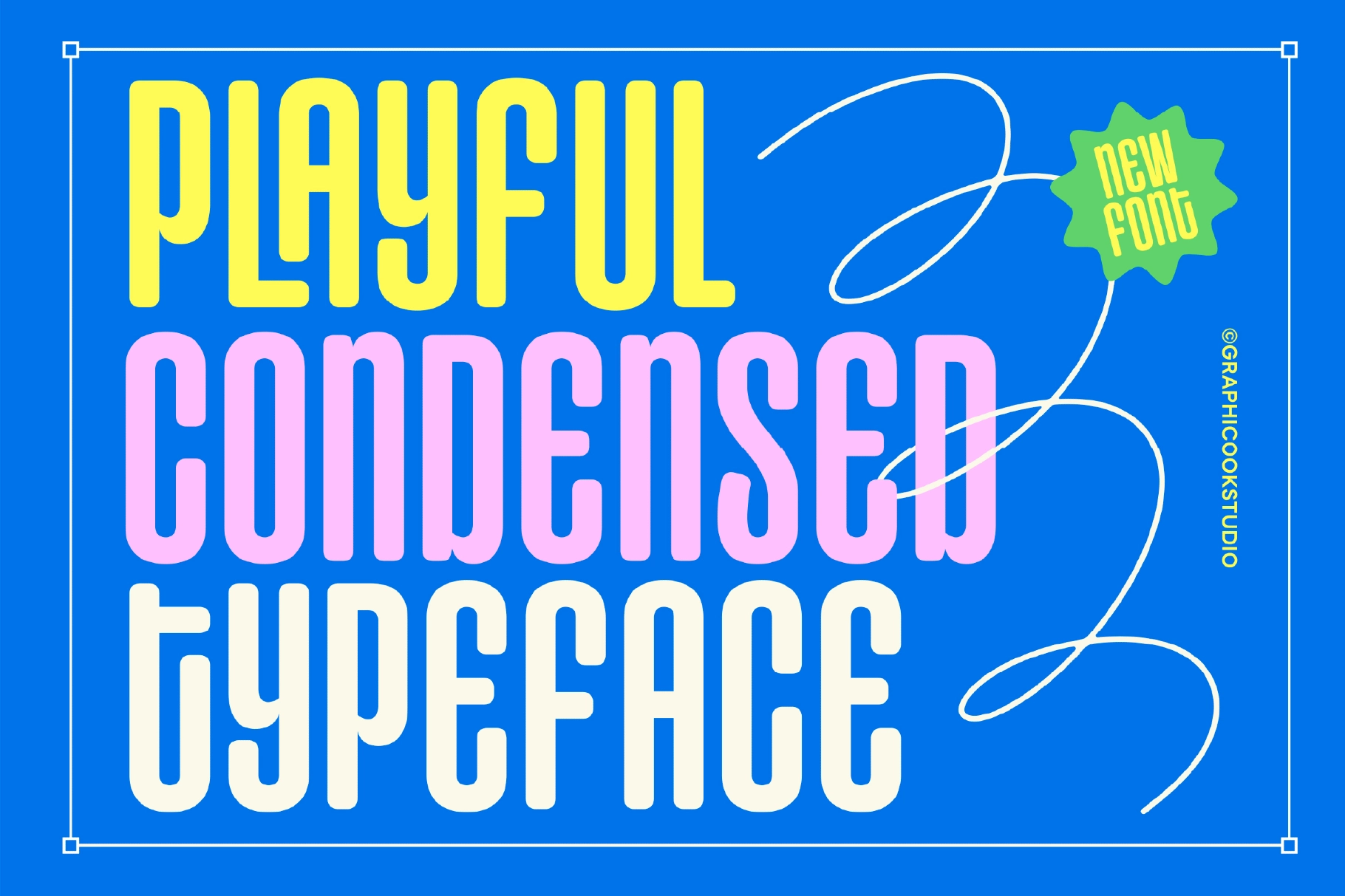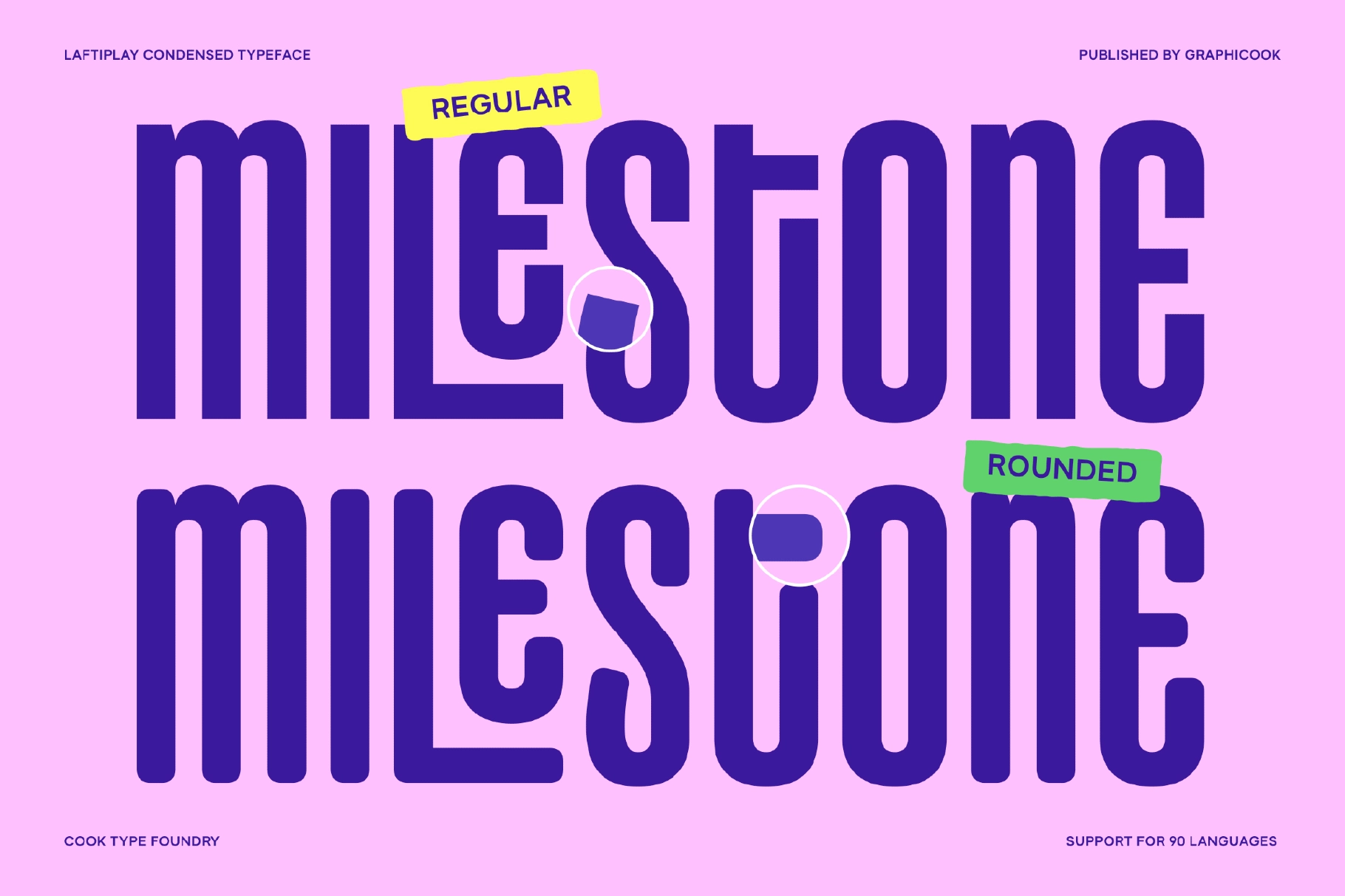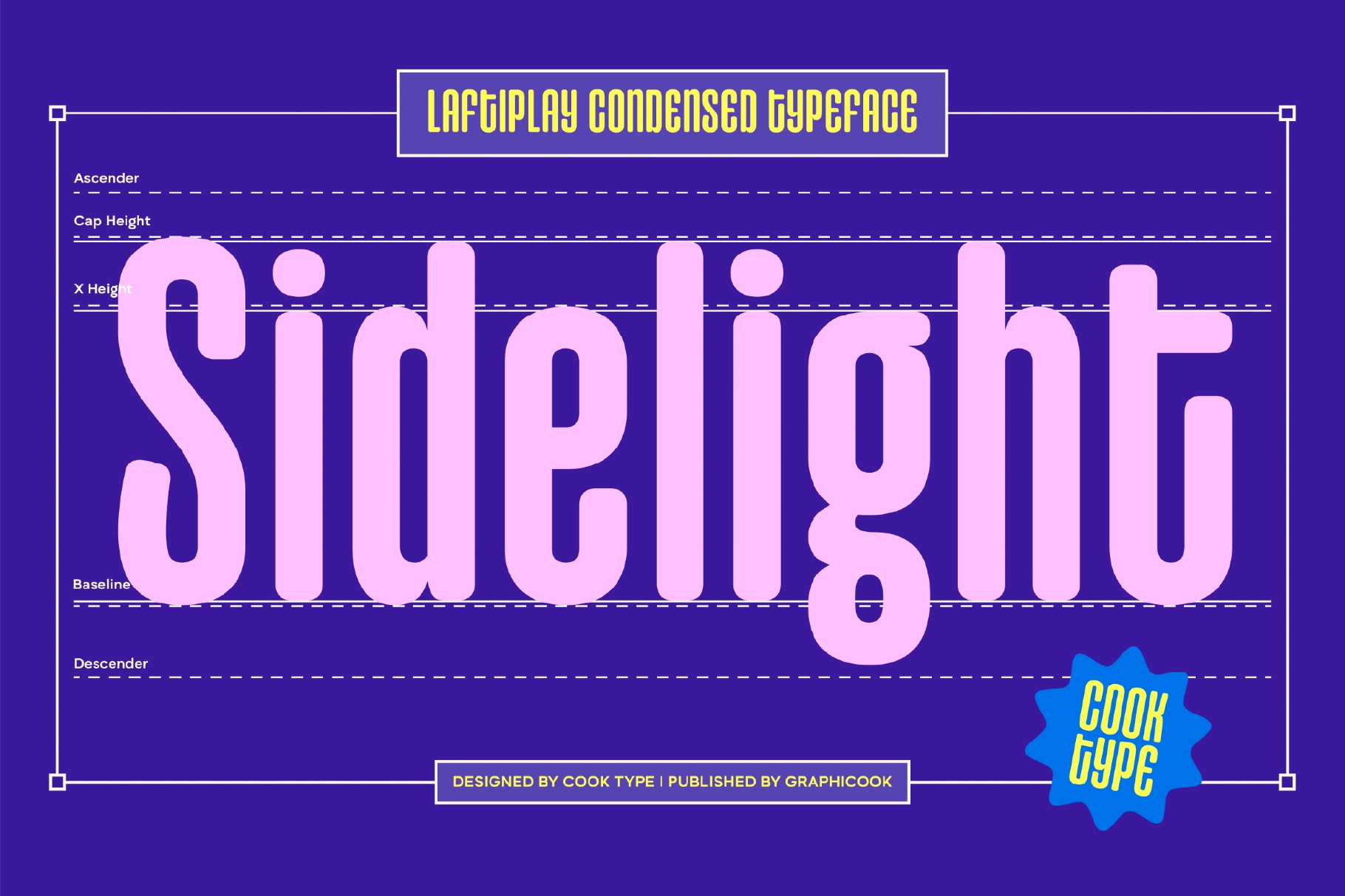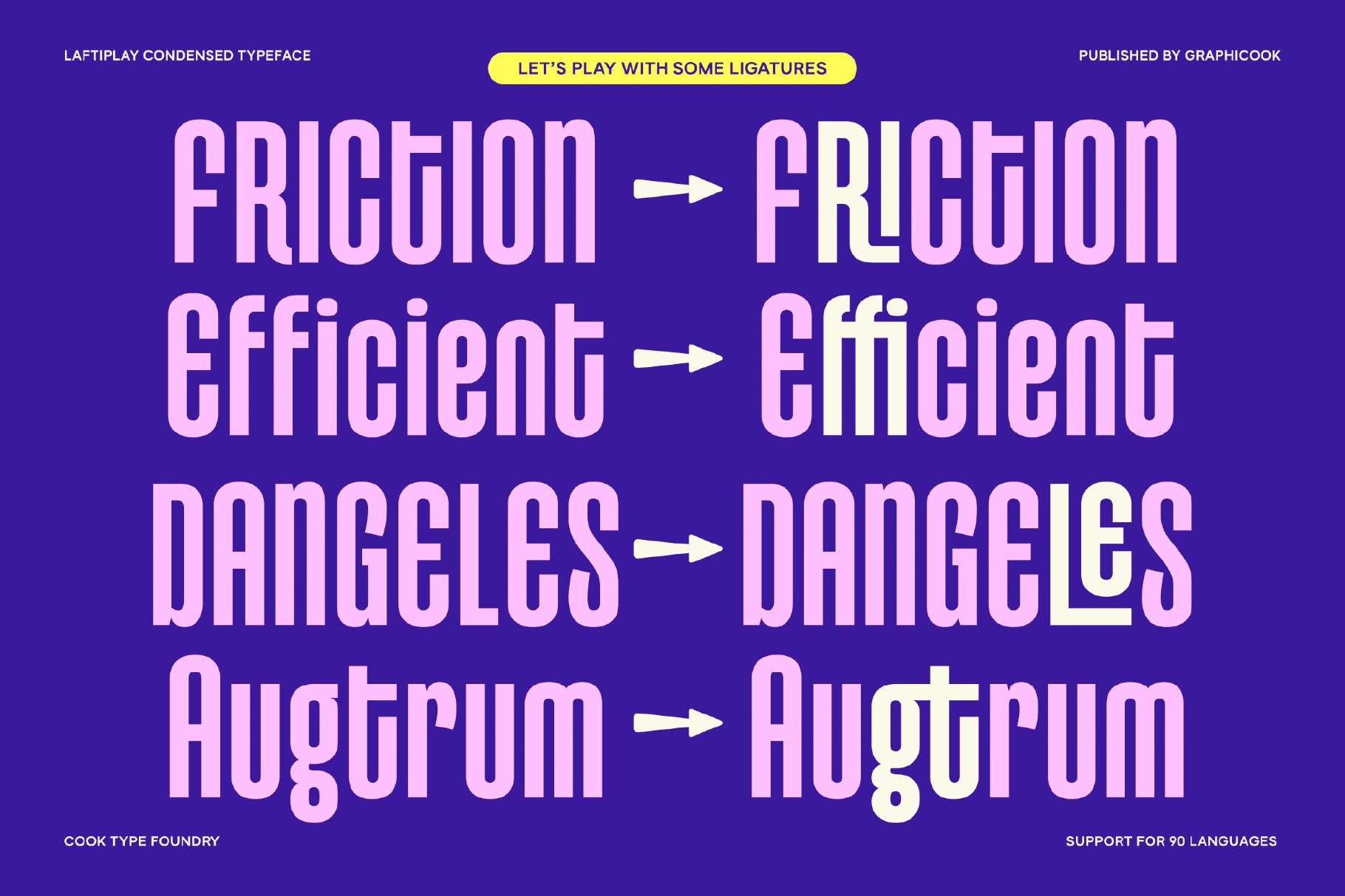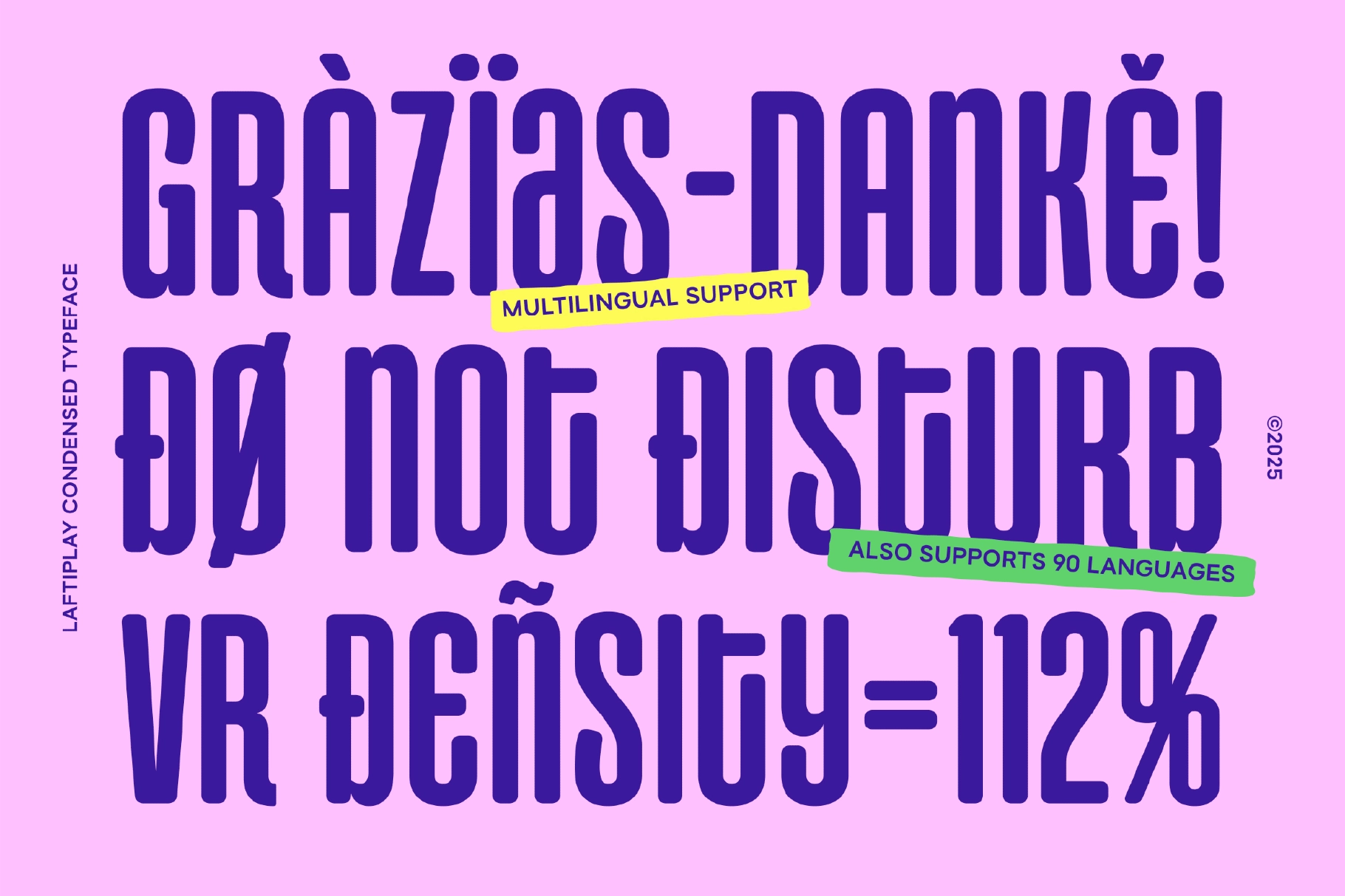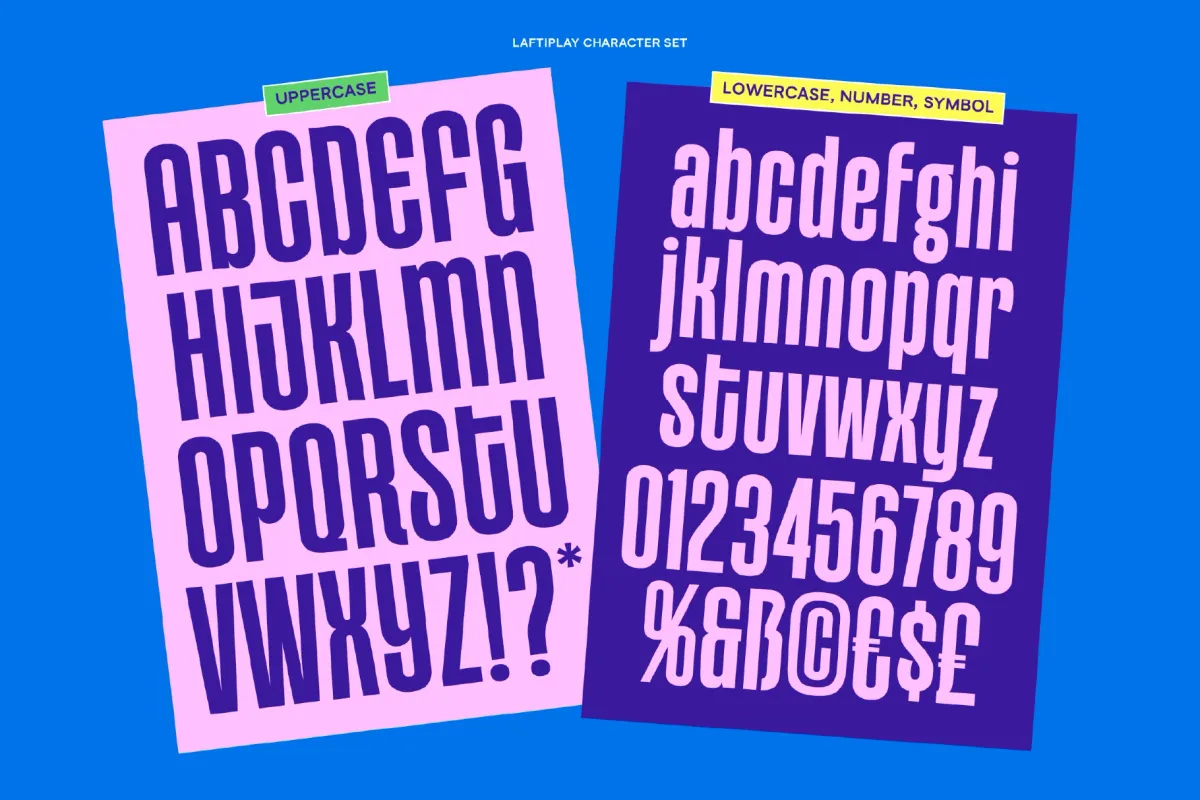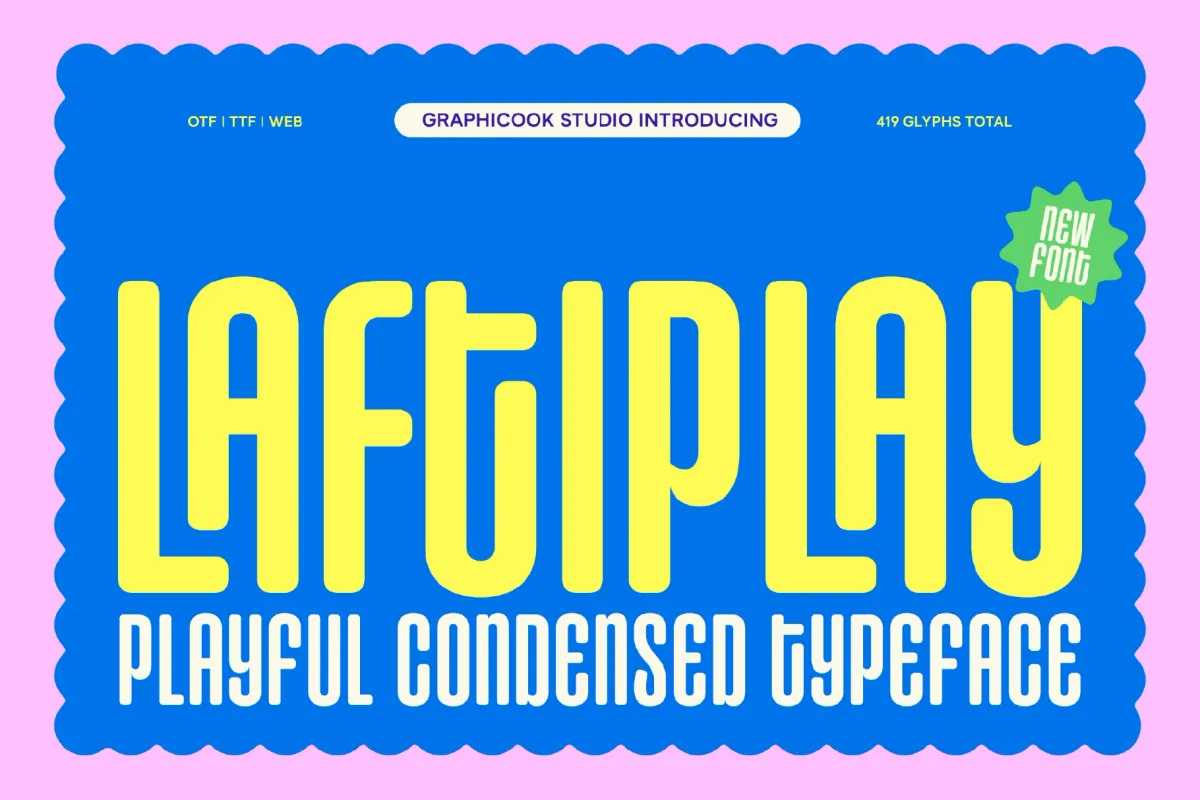
Laftiplay Font
Rounded
Laftiplay comes in two styles: Regular and Rounded. The Regular version offers a sleek, modern look with bold confidence, while the Rounded version brings a softer, friendlier tone. Ideal for branding, editorial, or UI design that needs a balance of professionalism and approachability.